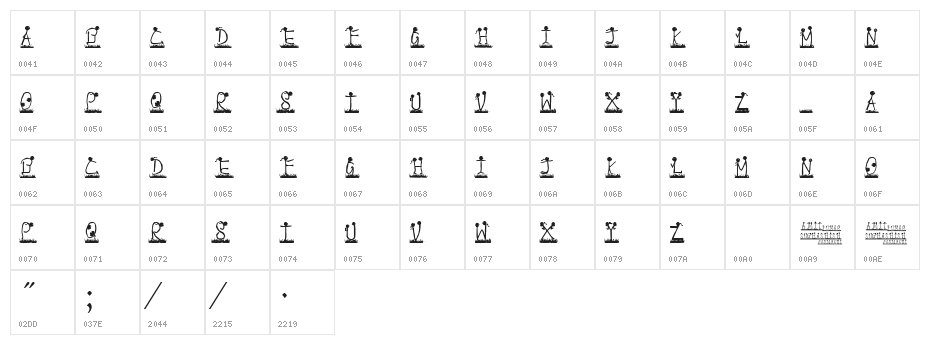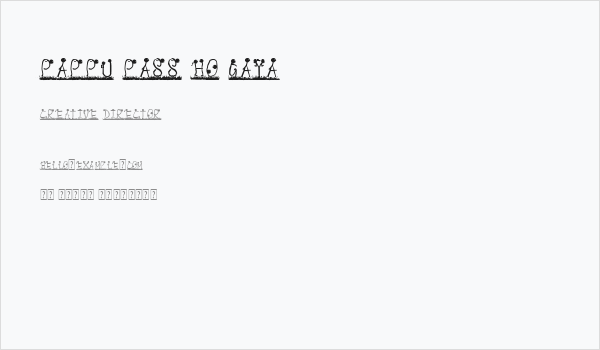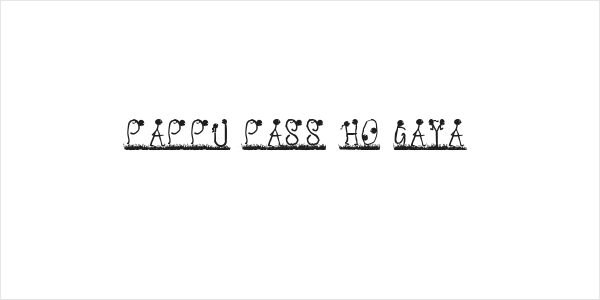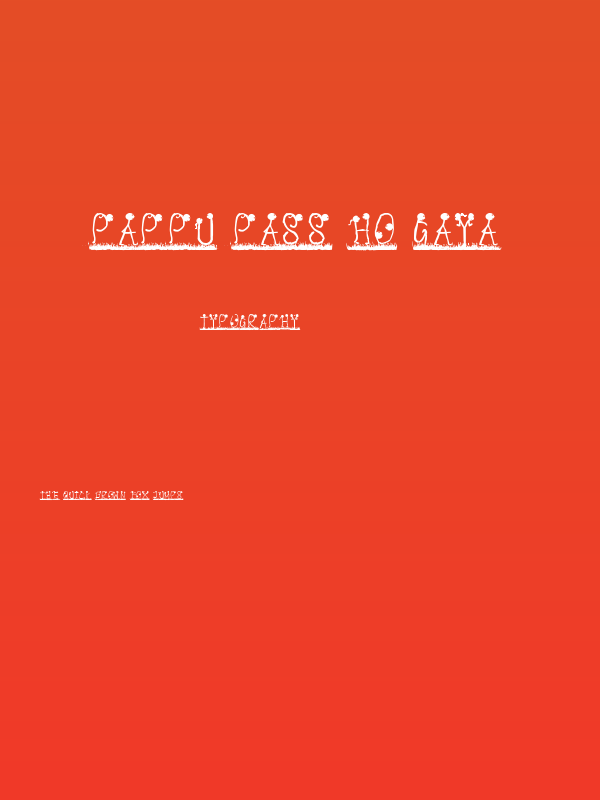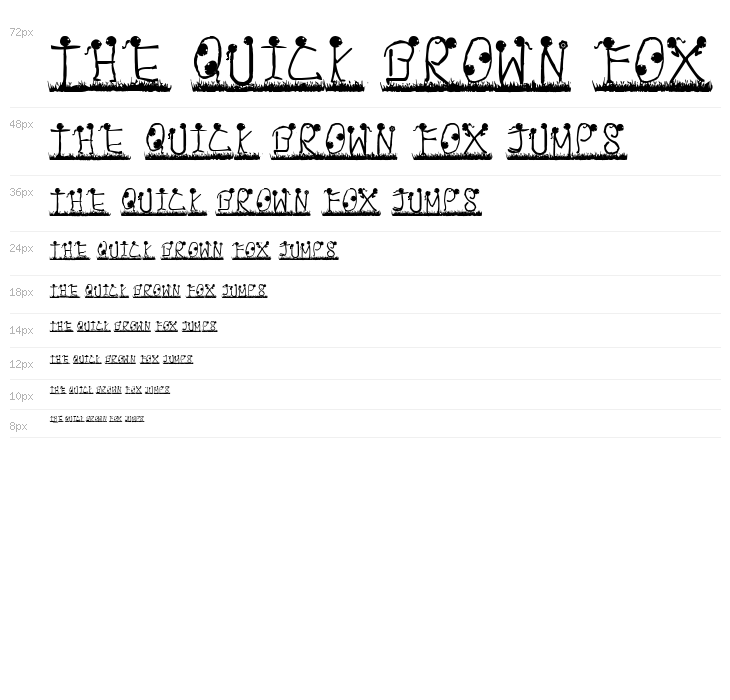
Pappu pass ho gaya Font
Pappu pass ho gaya Description
This font features a playful and whimsical design, with each letter incorporating elements of nature, such as grass and small creatures. The characters are uniquely styled, with a combination of organic curves and straight lines, giving it a lively and animated appearance. The uppercase letters are particularly distinctive, with each character appearing to stand on a grassy base, while the lowercase letters maintain a similar theme with slight variations in height and form. The font's overall look is reminiscent of a storybook or fantasy setting, making it ideal for creative and imaginative projects.
| Overall Style | Whimsical, Playful |
| Proposed Projects | Ideal for children's books, fantasy-themed posters, and playful branding materials. |